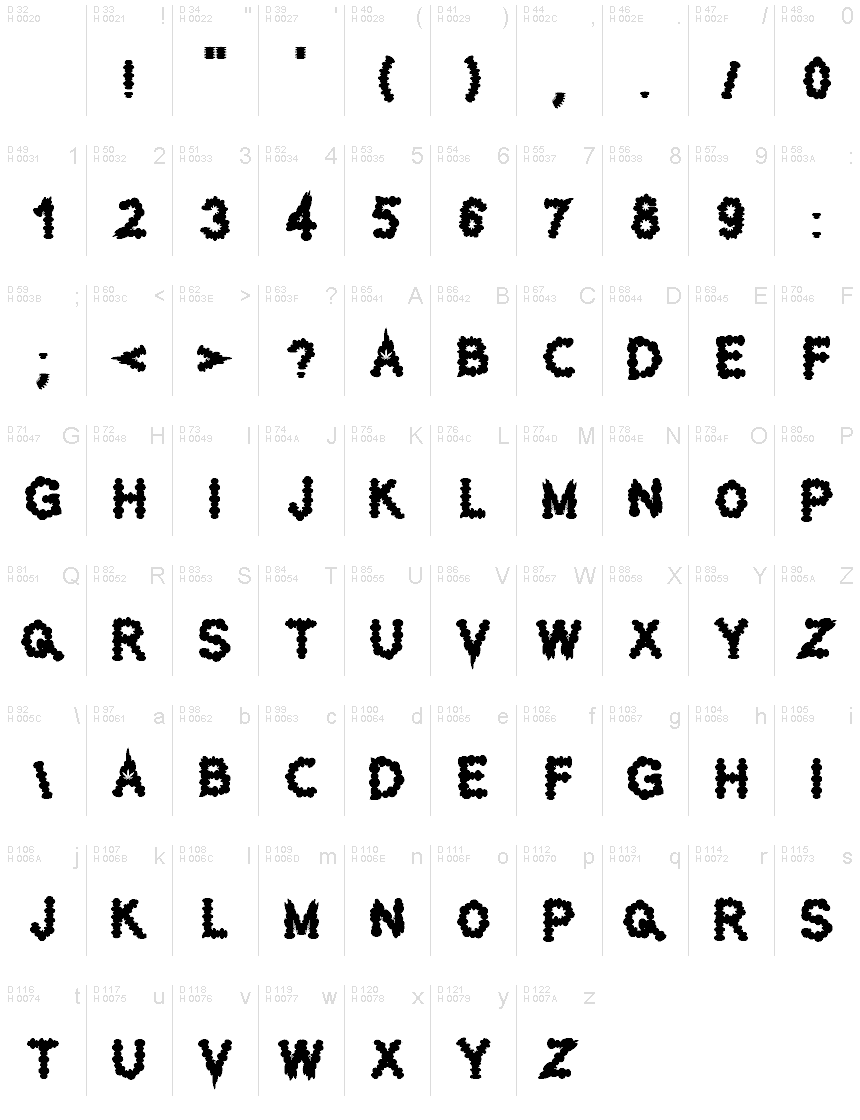
Cannabis Bold
Cannabis Bold font is a distinctive and visually dense display font crafted by Fouad Bouziani. This decorative typeface stands out with its unconventional and textured appearance, creating a unique organic vibe. Its bold presence makes it a thematic choice for projects that seek distinctiveness.